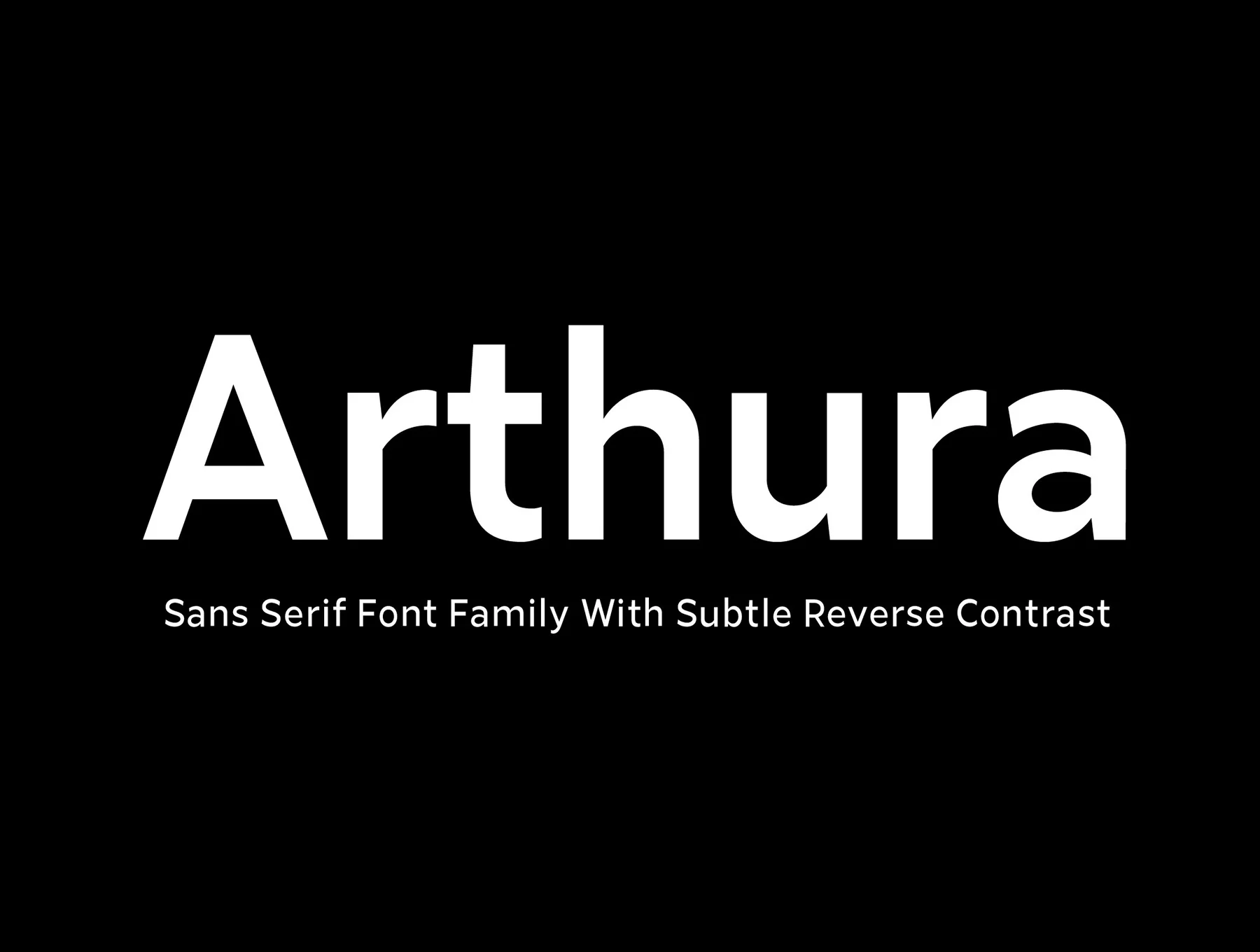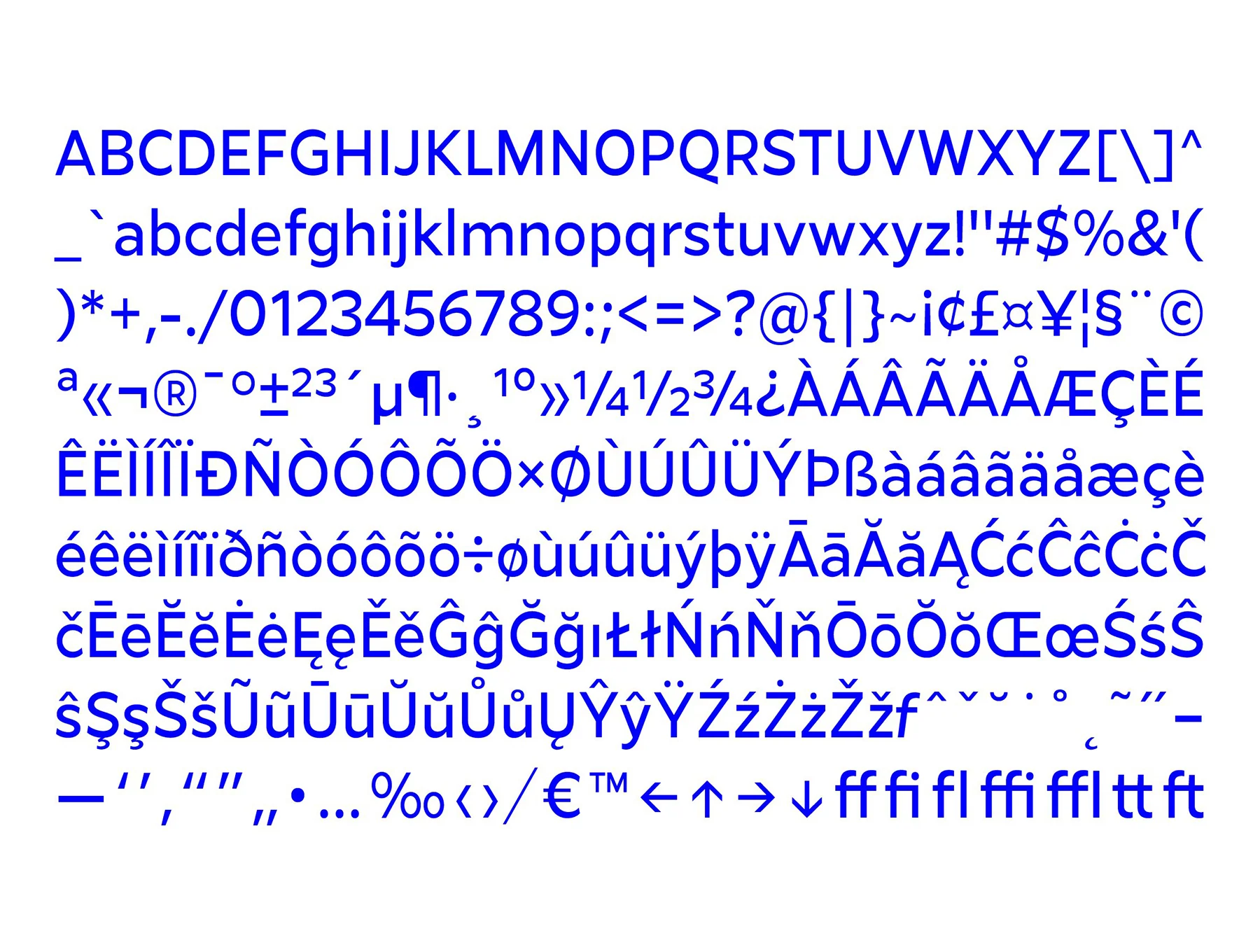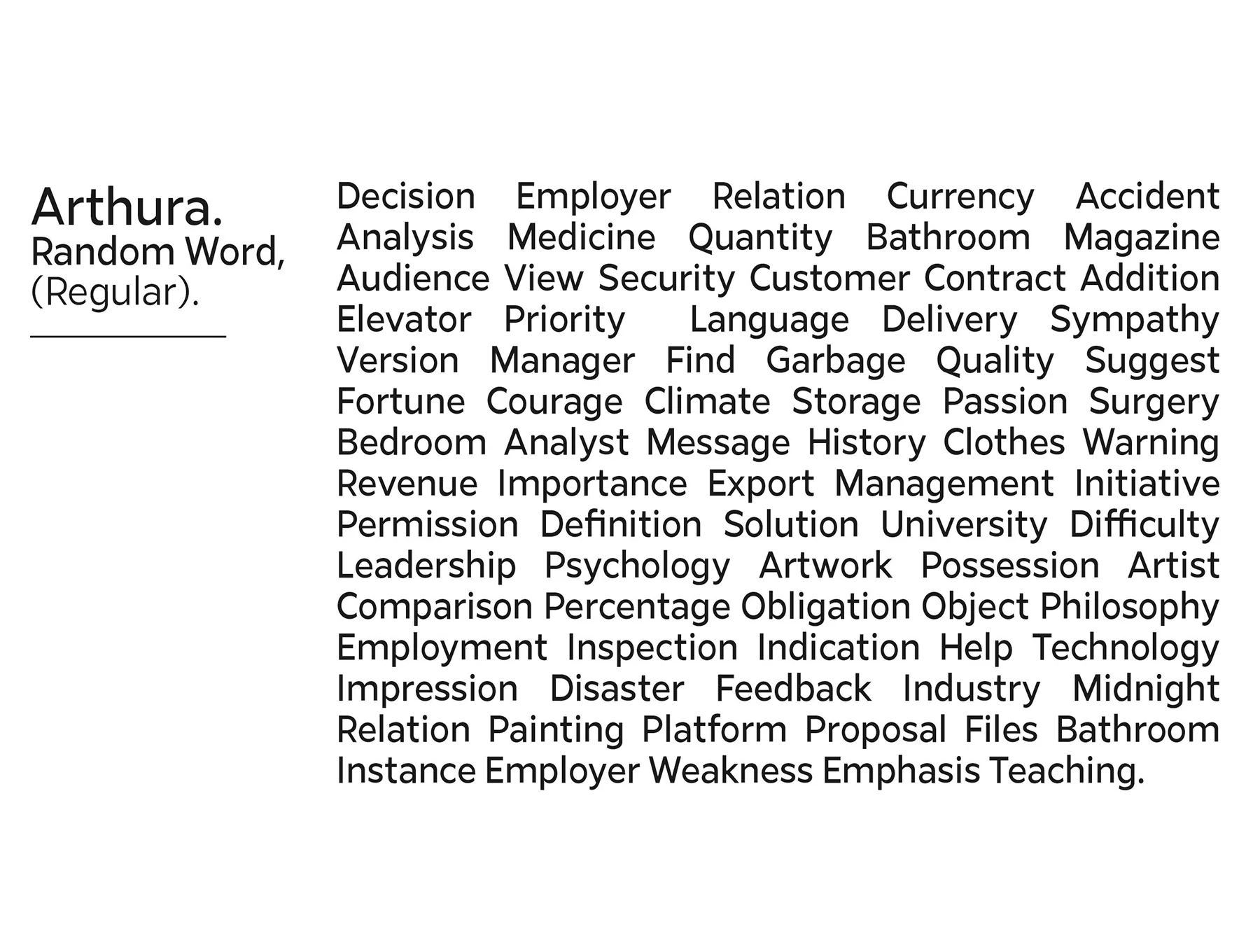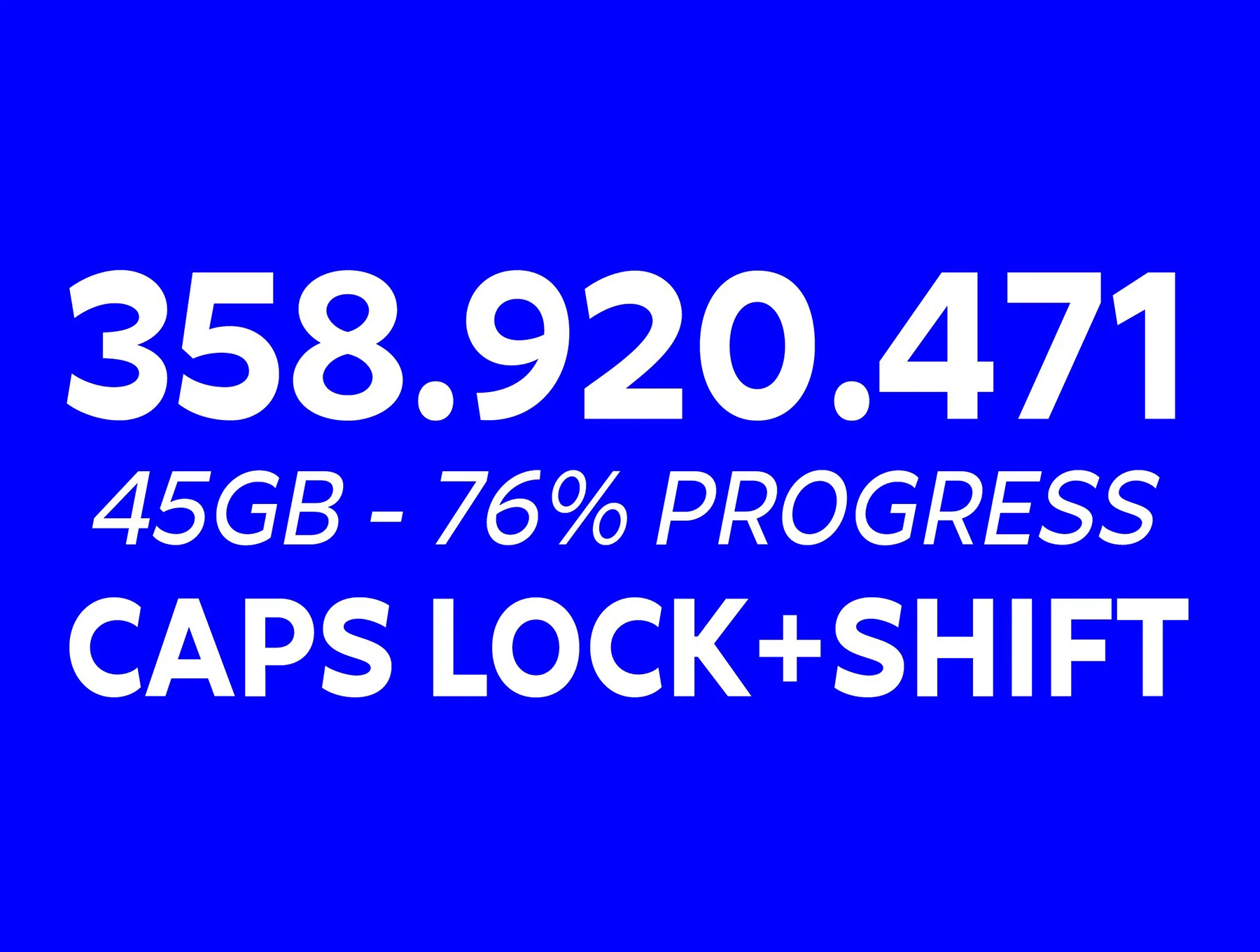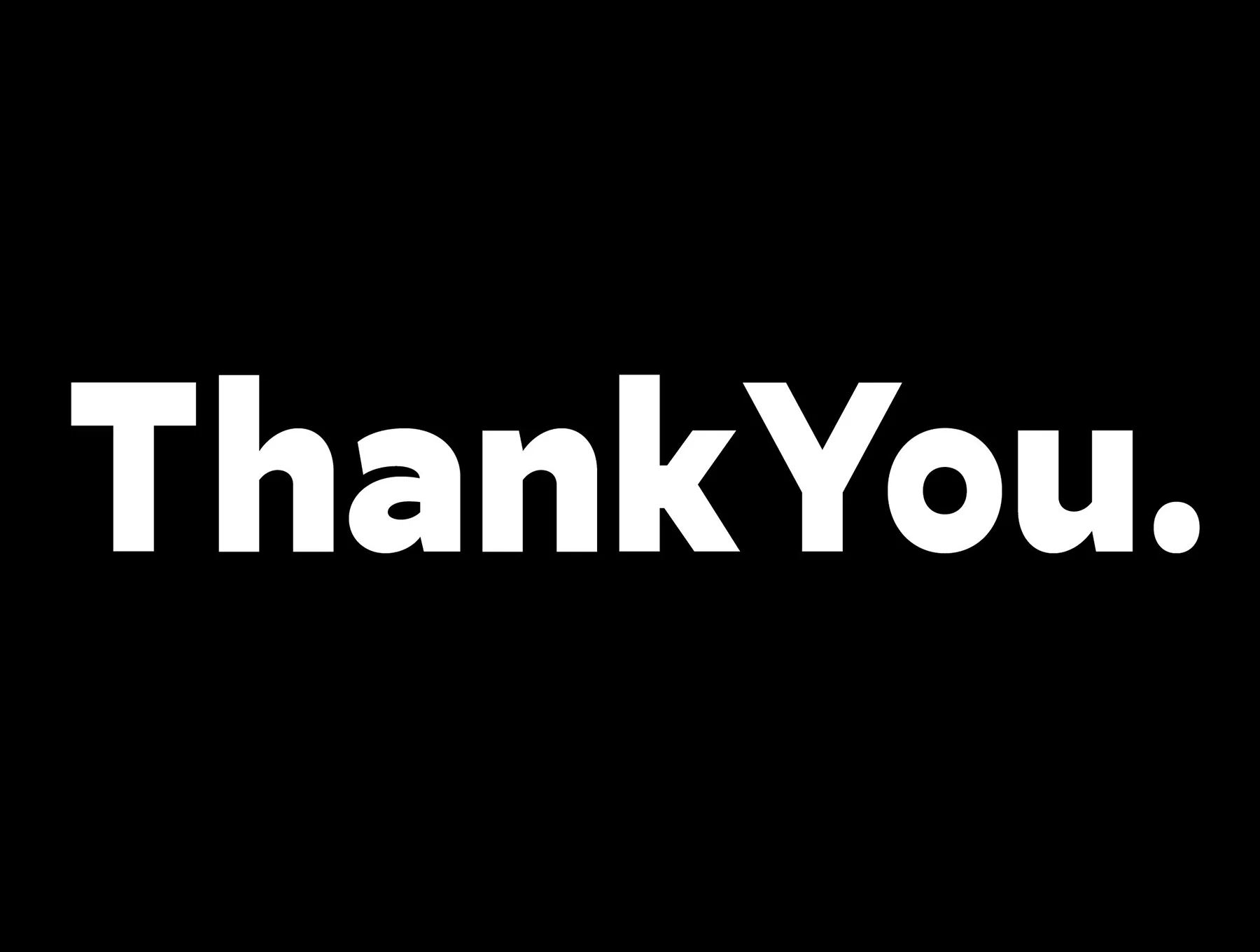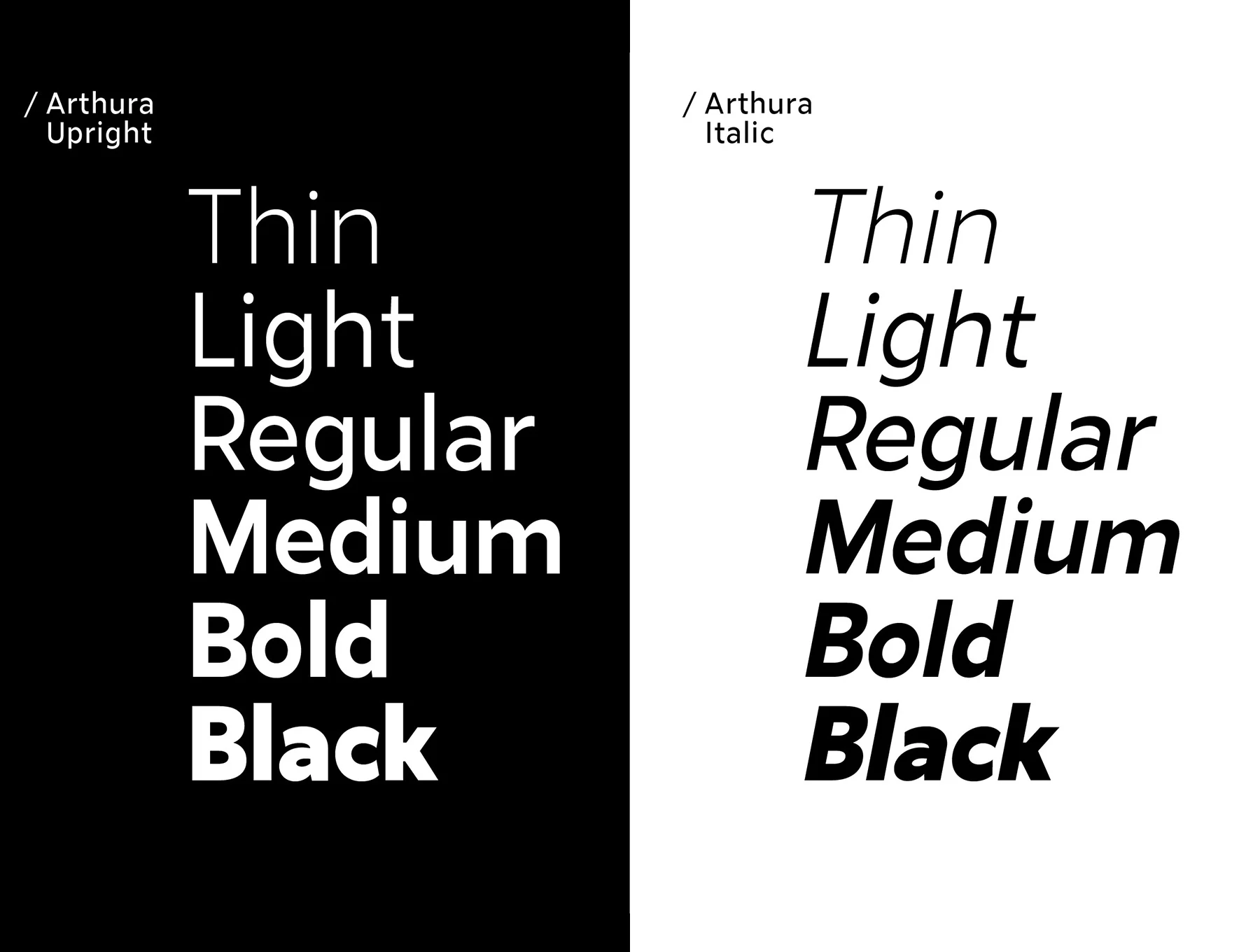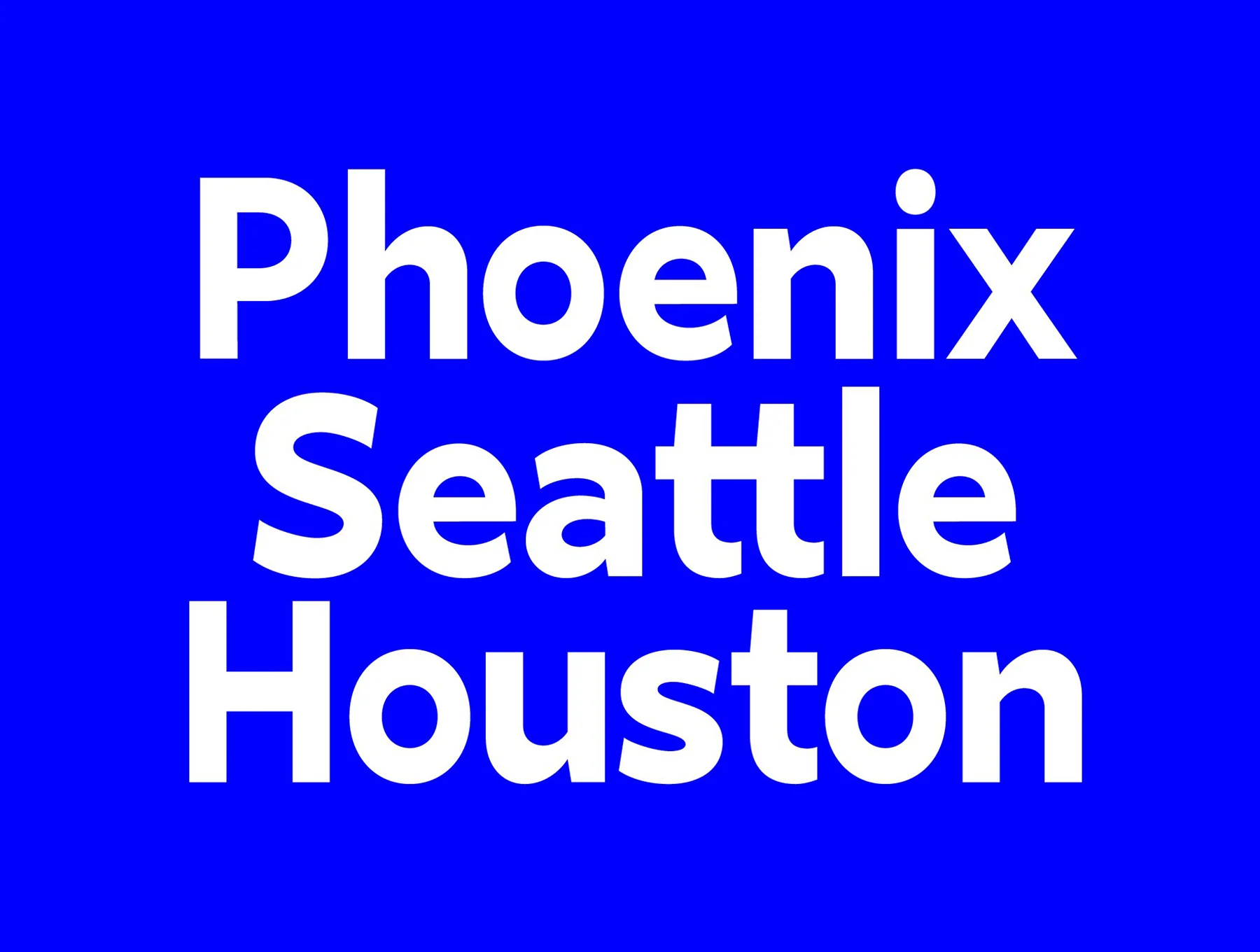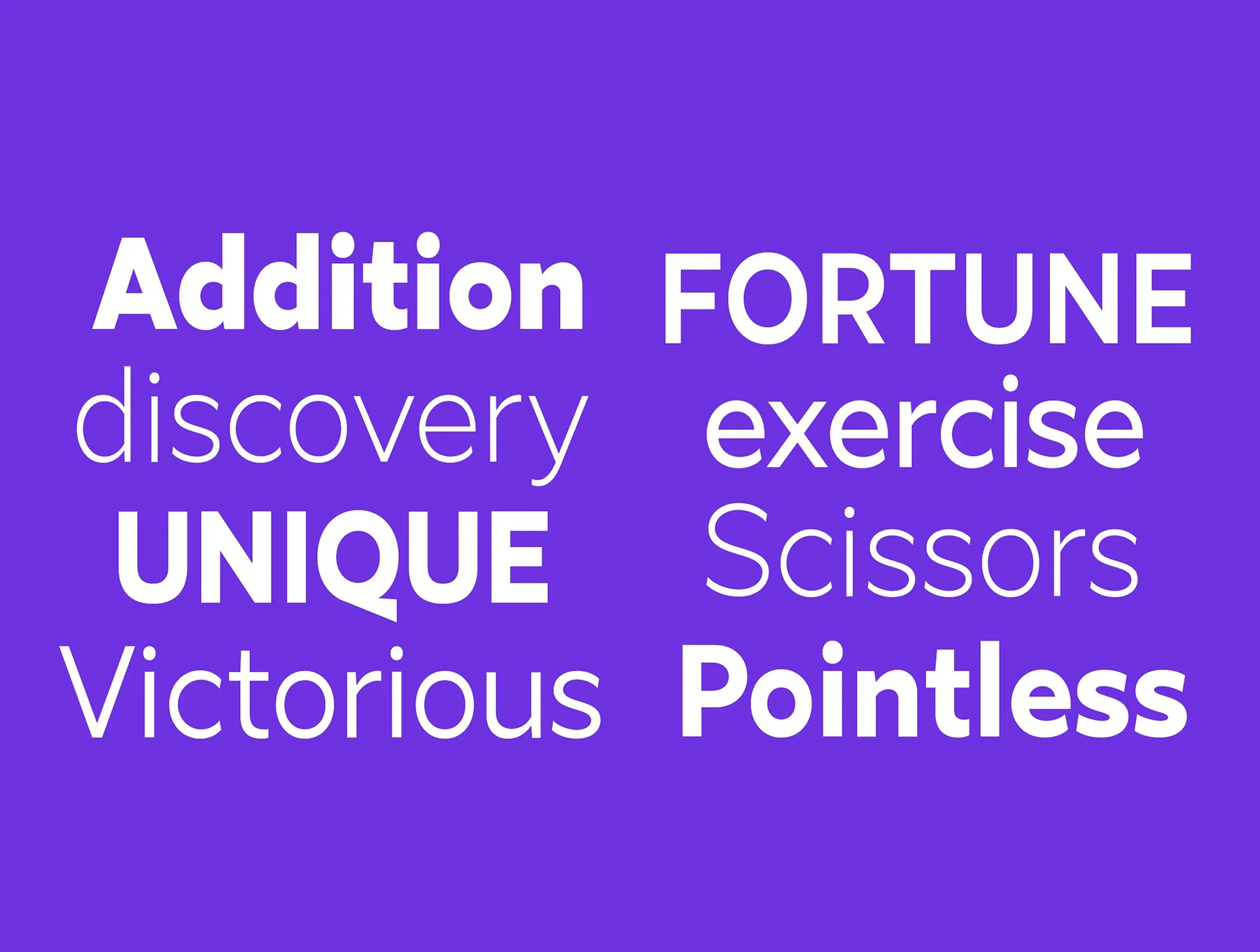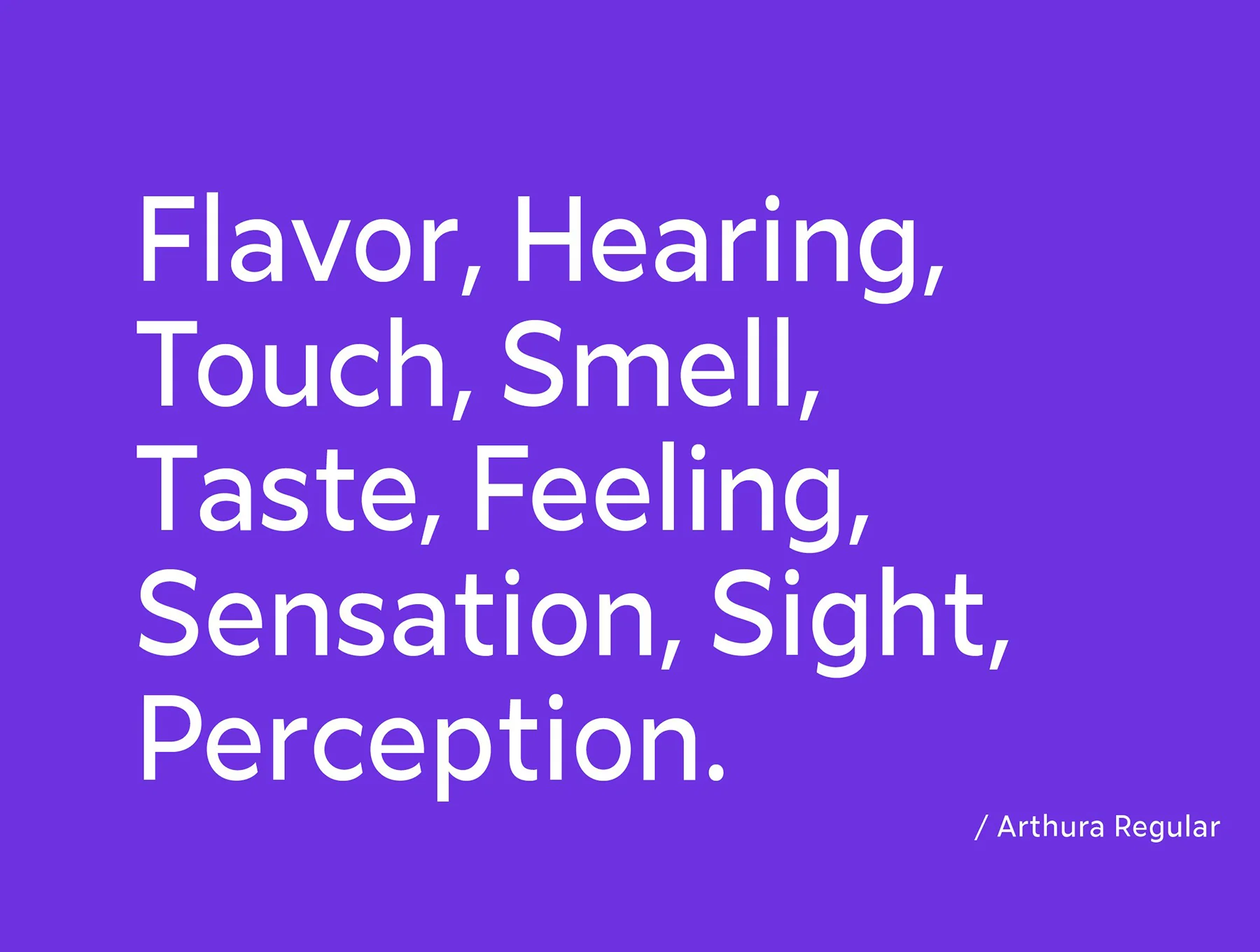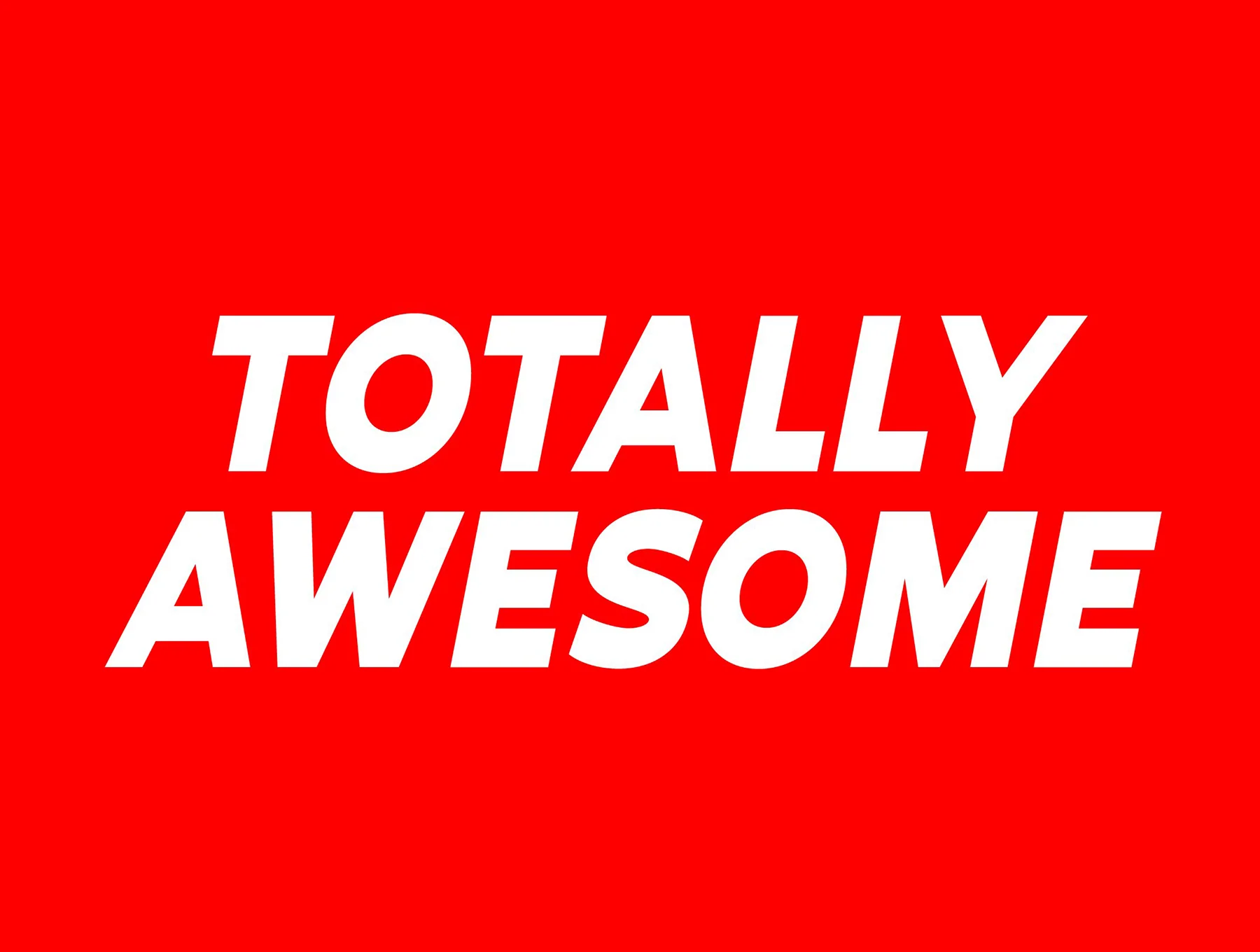
Arthura Font Family
Sans serif typeface collection featuring gentle inverted contrast.
12 variants: 6 roman styles with paired italics
290 characters
Supports Latin-based languages
OpenType capabilities, such as ligatures
Arthura is a sans serif type family featuring gentle reverse contrast, most noticeable in the heavy Black cut. Its clean geometric structure is softened by humanist details for a warmer feel. Ideal for branding, magazines, posters, ads, packaging, headlines, logos, web, and print. Includes 12 styles, 290 glyphs, Latin language support, OpenType ligatures, plus OTF and TTF files.